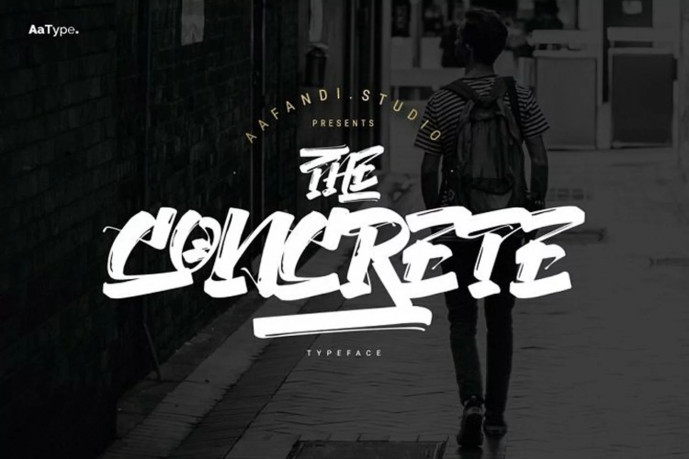
The Concrete – Street Graffiti Font
The Concrete – Street Graffiti Font. The Concrete from aafandi is a premium bold high-resolution street tagging & graffiti’s inspired typeface, develop with hand-style tagging shape with lot of features.
The Concrete Opentype features including more than 130 glyphs : All Caps Uppercase & Lowercase, Numerals, Punctuation, Ligatures, Alternates Stylistic, Swash & Elements.